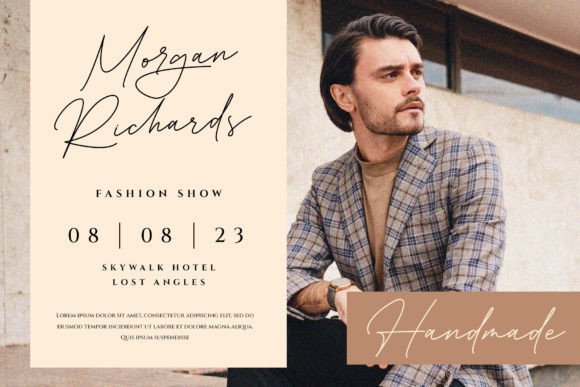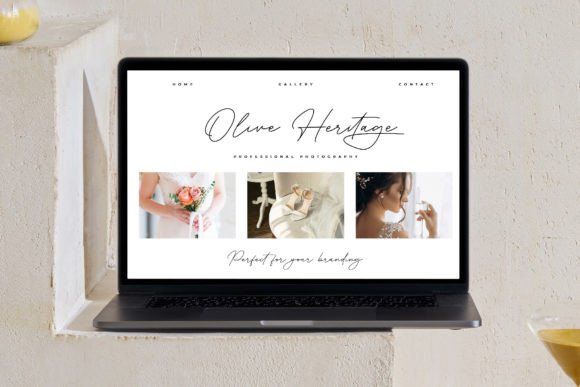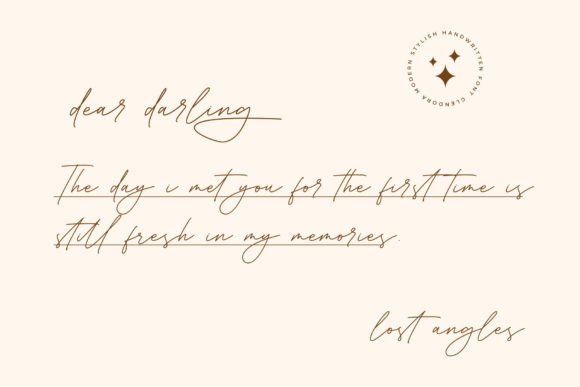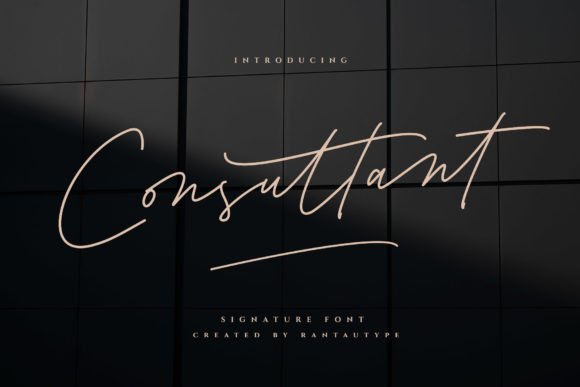
Introducing Consultant Font: Elevate Your Designs with Elegance and Sophistication
In the world of typography, a well-crafted font can make all the difference in elevating your designs to new heights. For designers and crafters seeking a touch of elegance and sophistication, Consultant Font is an exquisite handwritten font that is sure to capture your heart. With its masterful blend of classy calligraphic influences and contemporary flair, Consultant Font is the perfect choice for those who want to add a touch of luxury to their projects.
The Art of Handwritten Typography
Handwritten fonts have a unique ability to add a personal touch to any design. They evoke a sense of warmth, elegance, and sophistication that is hard to replicate with traditional fonts. Consultant Font takes this concept to the next level with its beautiful, flowing script that exudes refinement and poise. Whether you’re working on a branding project, wedding invitation, or packaging design, Consultant Font is sure to make a lasting impression.
What Makes Consultant Font Stand Out?
So, what sets Consultant Font apart from other handwritten fonts on the market? Here are just a few features that make it a standout choice:
- Classy Calligraphic Influences: Consultant Font boasts a beautiful, flowing script that is reminiscent of traditional calligraphy. Its elegant strokes and refined letterforms make it perfect for designs that require a touch of sophistication.
- Contemporary and Fresh: While Consultant Font draws inspiration from traditional calligraphy, it also has a distinctly modern feel. Its clean lines, subtle nuances, and expertly crafted letterforms ensure that it feels fresh and contemporary.
- Versatile: Consultant Font is incredibly versatile, making it suitable for a wide range of design applications. From branding and packaging to wedding invitations and stationery, this font is sure to shine.
Why Choose Consultant Font for Your Projects?
With so many fonts to choose from, why should you choose Consultant Font for your projects? Here are just a few compelling reasons:
- Elegance and Sophistication: Consultant Font adds a touch of elegance and sophistication to any design. Its refined letterforms and flowing script make it perfect for designs that require a high level of polish.
- Easy to Read: Despite its elegant appearance, Consultant Font is incredibly easy to read. Its clear letterforms and flowing script ensure that your message is conveyed with clarity and precision.
- Unique and Memorable: Consultant Font is a unique and memorable font that is sure to make your designs stand out. Its distinctive appearance ensures that your brand or project will be remembered.
How to Use Consultant Font in Your Designs
Ready to fall in love with Consultant Font and bring your projects to the highest levels? Here are a few tips for incorporating this beautiful font into your designs:
- Pair it with Bold Fonts: Consultant Font pairs beautifully with bold fonts, creating a striking contrast that adds visual interest to your design.
- Use it for Headings and Titles: Consultant Font is perfect for headings and titles, where its elegant appearance can really shine.
- Experiment with Colors: Consultant Font looks stunning in a range of colors, from rich jewel tones to soft pastels. Experiment with different colors to find the perfect fit for your design.
In conclusion, Consultant Font is a truly exquisite handwritten font that is sure to capture the hearts of designers and crafters everywhere. With its masterful blend of classy calligraphic influences and contemporary flair, it’s the perfect choice for those who want to add a touch of elegance and sophistication to their projects. Whether you’re working on a branding project, wedding invitation, or packaging design, Consultant Font is sure to elevate your designs to new heights.